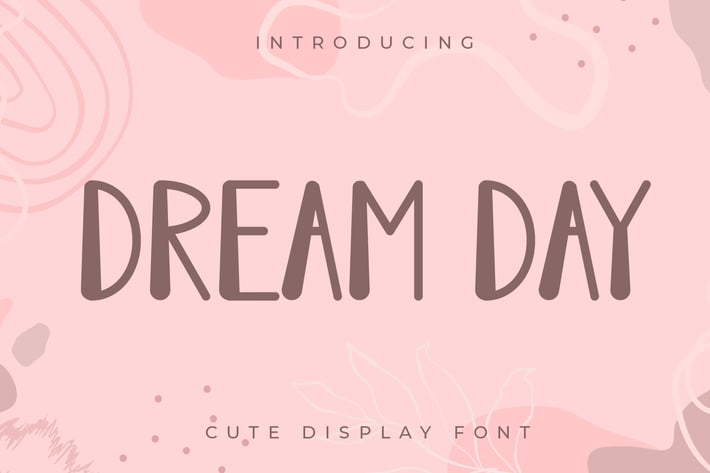
Dream Day - Cute Display Font
Introducing Dream Day - Cute Display Font
Dream Day is a quirky and cute display font that fits perfectly into any of your beautiful creations! Its casual charm makes it look very down-to-earth, easy to read, and very versatile!